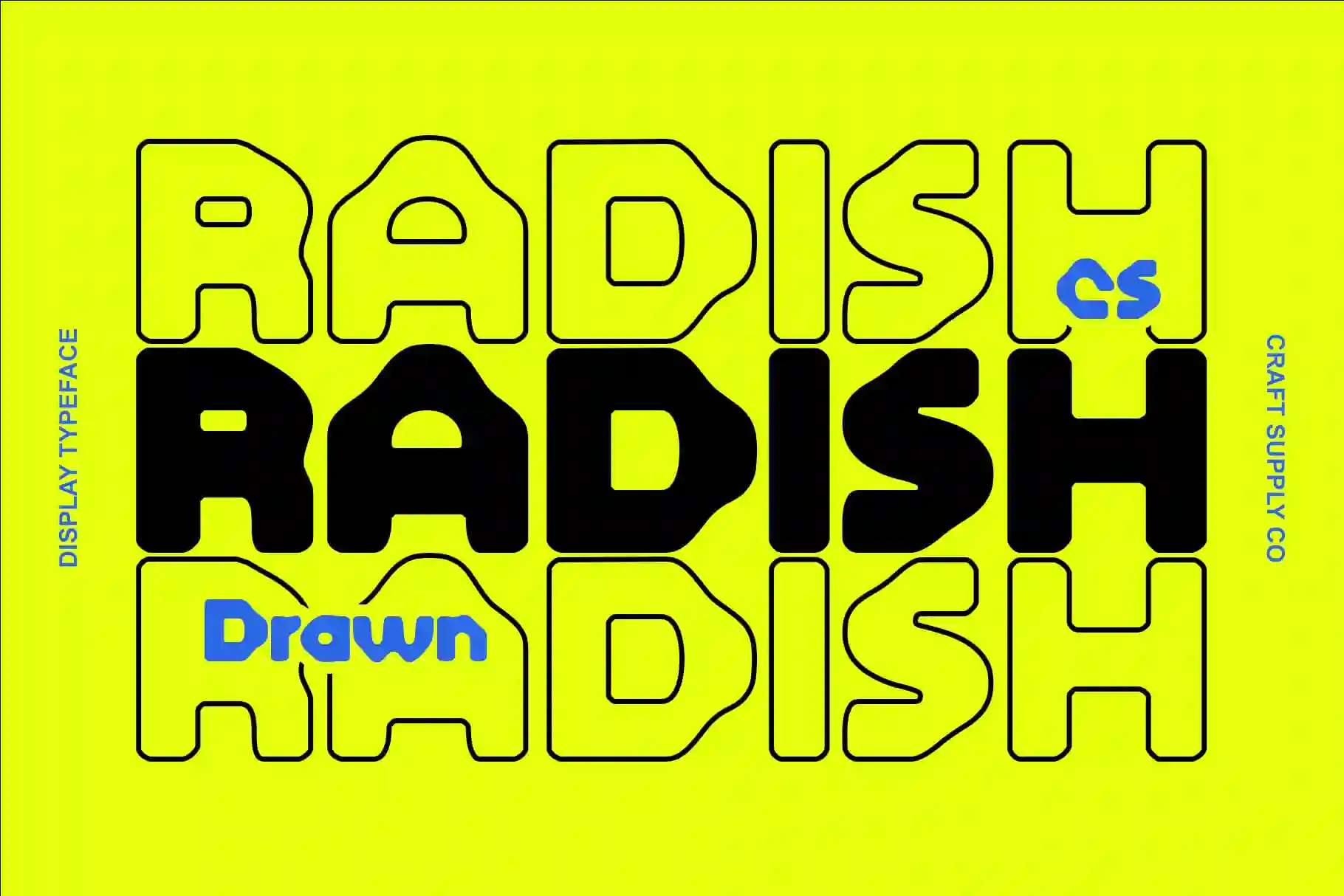
CS Radish Drawn – Techno-Inspired Font: Bold Futuristic Display with Drawn Energy
Futuristic Power in Every Stroke
This is a techno-inspired designed to project boldness and modernity. It radiates futuristic energy that instantly commands attention. This font is ideal for projects that demand a sleek, powerful, and contemporary look, from digital interfaces to striking visual campaigns.
Hand-Drawn Character for Expressive Edge
Unlike sterile digital typefaces, This font carries a hand-drawn texture that adds depth and personality to its modern construction. The drawn finish creates a balance between precision and artistry, giving your designs a unique handmade flair while maintaining a forward-looking aesthetic.